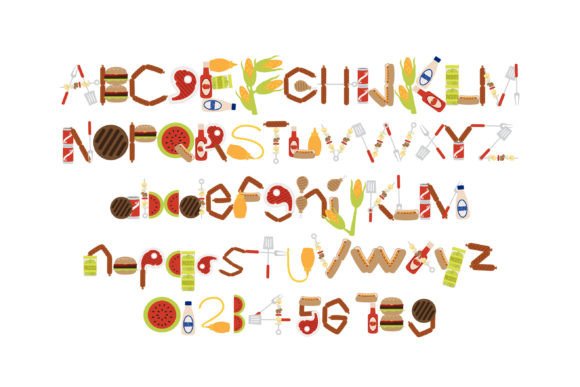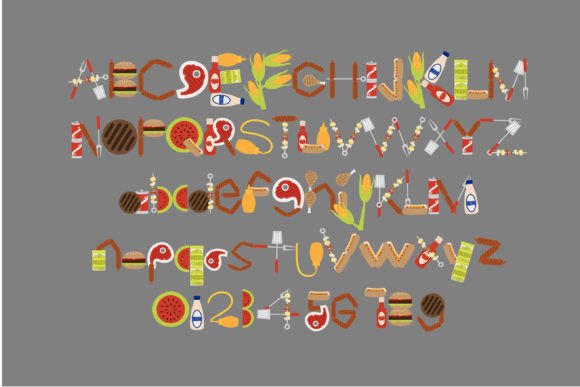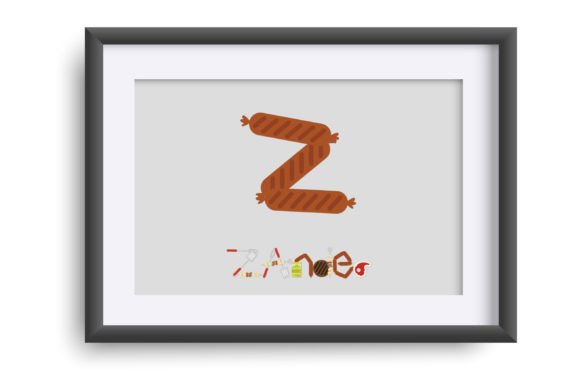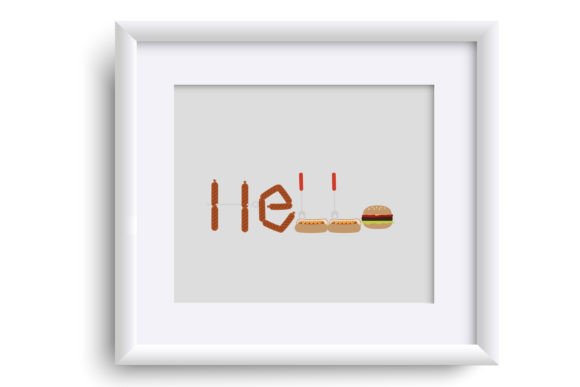
The Perfect Sizzle for Your Designs
Who hasn’t felt the rush of creativity when they’re flipping burgers on a sunny summer day? The smell of sizzling food, the sound of laughter, and the satisfaction of a perfectly grilled meal – it’s a moment that’s both relaxing and inspiring. For designers, that spark of creativity can be just what they need to bring a new project to life. And that’s exactly what the King of the Grill Font is designed to do – add a touch of personality and whimsy to your titles, displays, and posters.
This full-color font is a game-changer for designers looking to elevate their work. By featuring grilled foods arranged to make lettering, the King of the Grill Font is the perfect way to add some visual interest to your designs. Whether you’re working on a food-related project or just want to add some fun to your branding, this font is sure to impress. And with its compatibility with Silhouette Studio and other design programs, you can rest assured that your designs will look their best.
King of the Grill Font Key Features
- Font Family: King of the Grill is a unique display font designed to evoke the feeling of a backyard barbecue. It features bold, playful letterforms that are perfect for adding a touch of whimsy to your designs.
- Unique Characteristics: King of the Grill features a distinctive, hand-drawn feel with subtle imperfections that give it a charming, artisanal quality.
Designer Review: King of the Grill Font
I recently had the chance to work with the King of the Grill Font, and I must say it’s a font that will either win you over with its charm or leave you questioning its purpose.
- The font’s bold and playful nature makes it perfect for adding a casual touch to food-related branding or packaging.
- The varied letterforms and unique flourishes add visual interest and help the font stand out from more traditional sans-serif fonts.
- The font’s high x-height and sturdy lines make it suitable for use at larger sizes, where it can really shine.
- The font’s eccentricities can be overwhelming at smaller sizes or in body text, making it difficult to read.
- The lack of a standard weight set means users may need to adjust the font size or use a different font to achieve a balanced look.
- The font’s limited character set may make it less suitable for international or technical content.
Overall, I think the King of the Grill Font is best suited for projects where a bold, eye-catching font is needed to convey a sense of fun and playfulness. Just be aware of its limitations and use it judiciously to avoid overwhelming your audience.
For best results, use the King of the Grill Font for casual and playful designs, such as BBQ invitations, food labels, or sports-themed graphics.